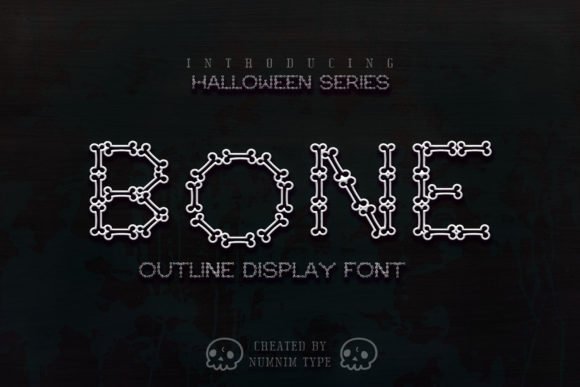
Bone to Pick with Design
As designers, we’ve all been there – staring at a blank canvas, trying to conjure up the perfect idea for a Halloween-themed project. The clock is ticking, and the pressure is on to create something that will send chills down our clients’ spines. It’s in these moments of creative desperation that we turn to the right tools to spark our imagination.
Enter Bone Font, the perfect display font for any spooky project. With its eerie look and feel, Bone Font is sure to cast a spell on your audience. But what makes it so valuable for designers like us? For one, its versatility allows us to use it in a variety of contexts, from posters to social media graphics, and everything in between.
Whether you’re a seasoned pro or just starting out, Bone Font is a valuable addition to your design arsenal. So, why not give it a try and see what kind of bone-chilling creations you can come up with?
Bone Font Key Features
- Character Set: The font includes a wide range of characters, including letters, numbers, punctuation, and symbols, with over 1000 glyphs.
- Unique Characteristics: Bone Font features a unique, hand-drawn design with a distressed, bone-like texture, giving it a distinctive and eye-catching appearance.
- Font Styles: Bone Font includes multiple font styles, including Regular, Italic, Bold, and Bold Italic, allowing for a range of creative possibilities.
Bone Font Review
When I first stumbled upon Bone Font, I was immediately drawn to its unique and quirky aesthetic. ✨ The font’s distressed, worn look gives it a sense of character that’s hard to find in more polished fonts.
- ✨ Unique and eye-catching design that’s perfect for creative projects
- ✨ Highly legible, even at small font sizes
- ✨ Versatile, can be used for a wide range of applications from headings to body text
However, there are a few limitations to consider. ⚠️ The font’s distressed look can be a double-edged sword – while it’s great for some projects, it may not be suitable for more formal or professional contexts.
- ⚠️ May not be suitable for formal or professional applications
- ⚠️ Can be difficult to read at very small font sizes
Overall, I think Bone Font is a great addition to any designer’s toolkit. While it may not be perfect for every project, its unique look and high legibility make it a great choice for creative and innovative applications.
Bone Font: A Practical Application Guide
For best results, use Bone Font in designs that require a touch of darkness or gothic charm. It’s perfect for:
- Haunted house invitations
- Spooky Halloween decorations
- Creepy horror movie posters
- Gothic-inspired fashion designs
Remember to experiment with different font sizes, colors, and styles to get the most out of Bone Font.
Alternatives to Bone Font for Designers
Bone Font is a popular font for designers, but sometimes it may not be the best fit for a project. Here are some alternatives to consider:
Great Vibes is a modern, elegant font with a wide range of styles and weights. It’s perfect for use in logo design, branding, and advertising where a sophisticated look is desired. Compared to Bone Font, Great Vibes has a more refined and polished feel, making it ideal for high-end projects.
Pacifico is a beautiful, handwritten font that’s perfect for use in creative and artistic projects. Its unique, flowing script makes it ideal for use in invitations, menus, and other design elements where a personal touch is desired. Compared to Bone Font, Pacifico has a more organic and expressive feel, making it perfect for projects that require a human touch.